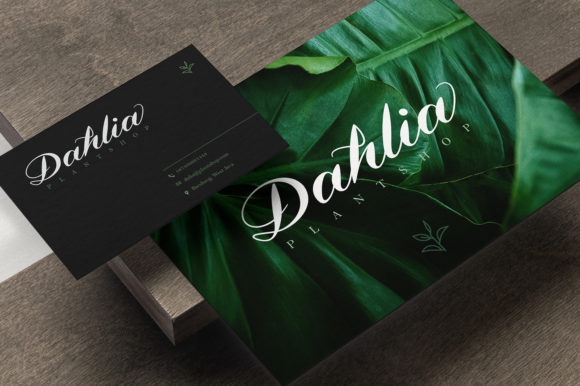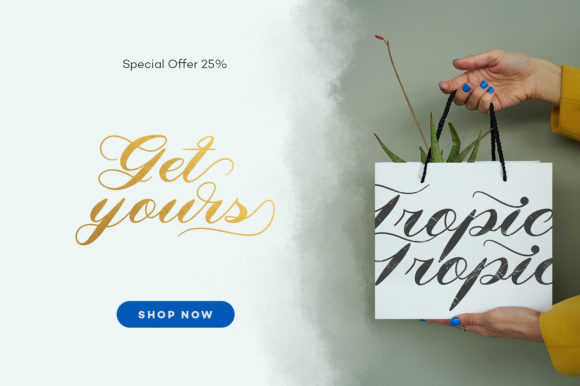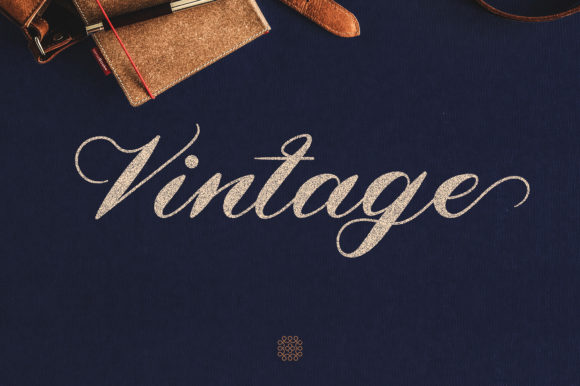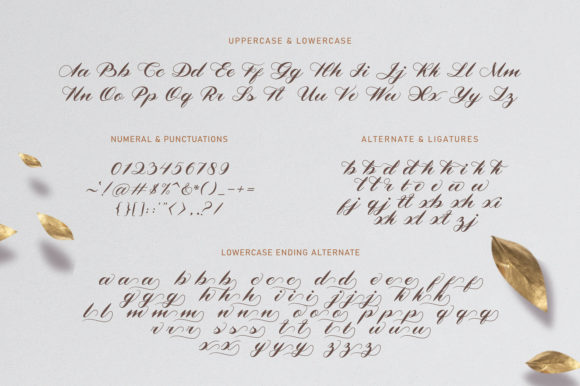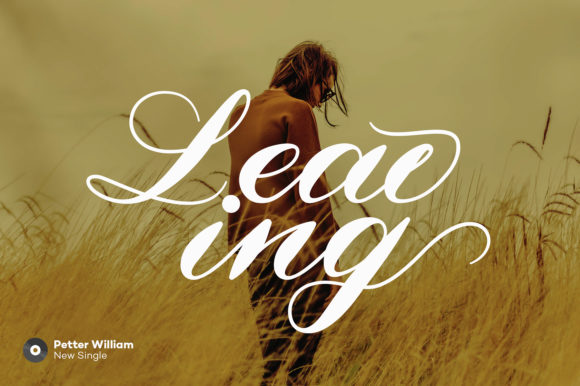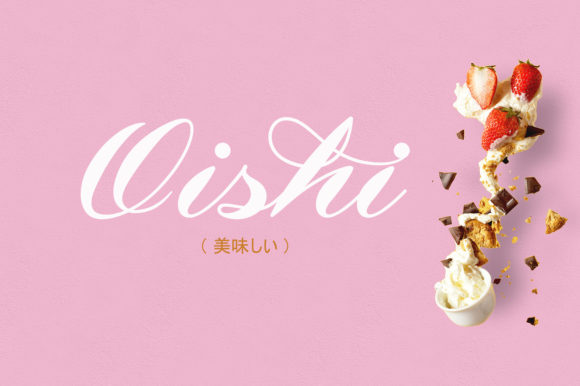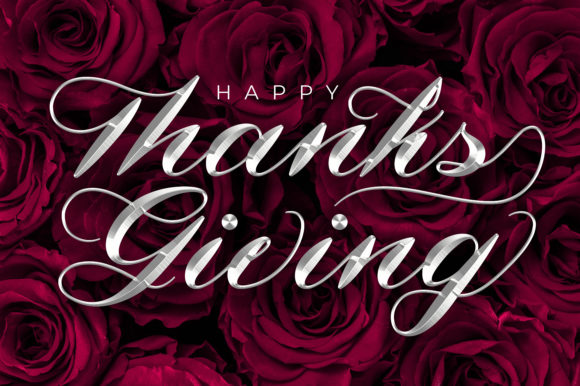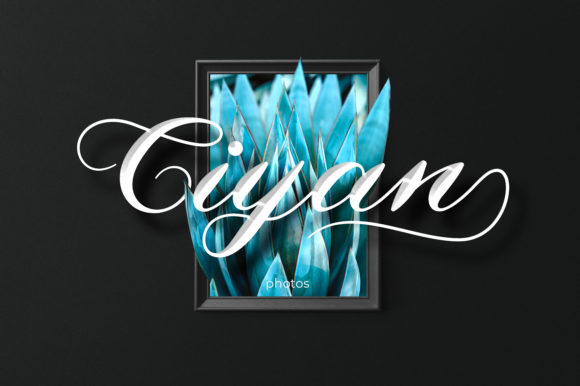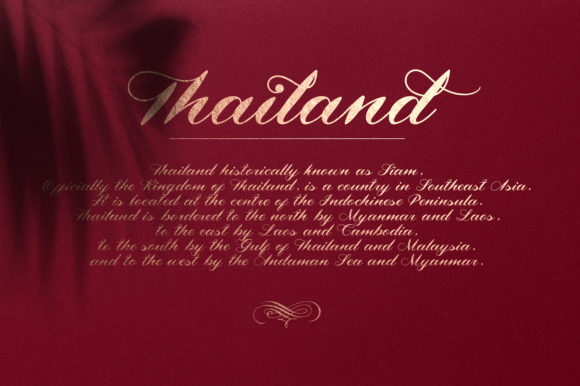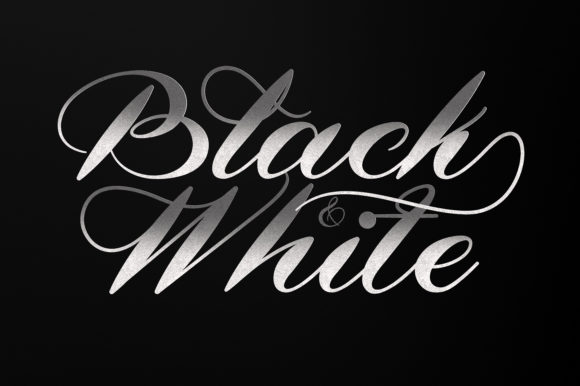
Windy Font
About Windy Font
Windy is a classic script font featuring an elegant style and luxurious vibe. This font can be used for various designs, including cards, posters, signage, wedding invitations, catalogs, book covers, and more!